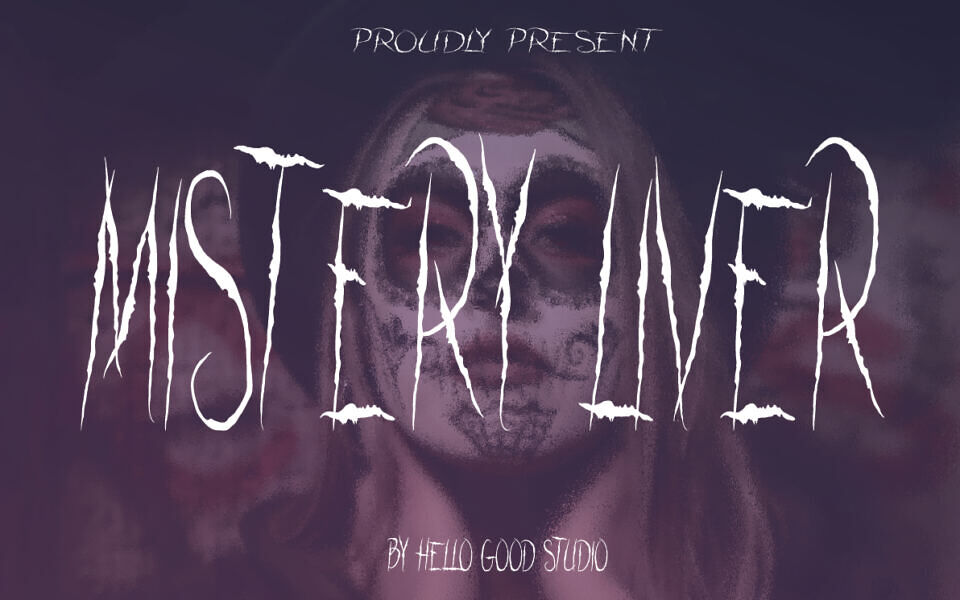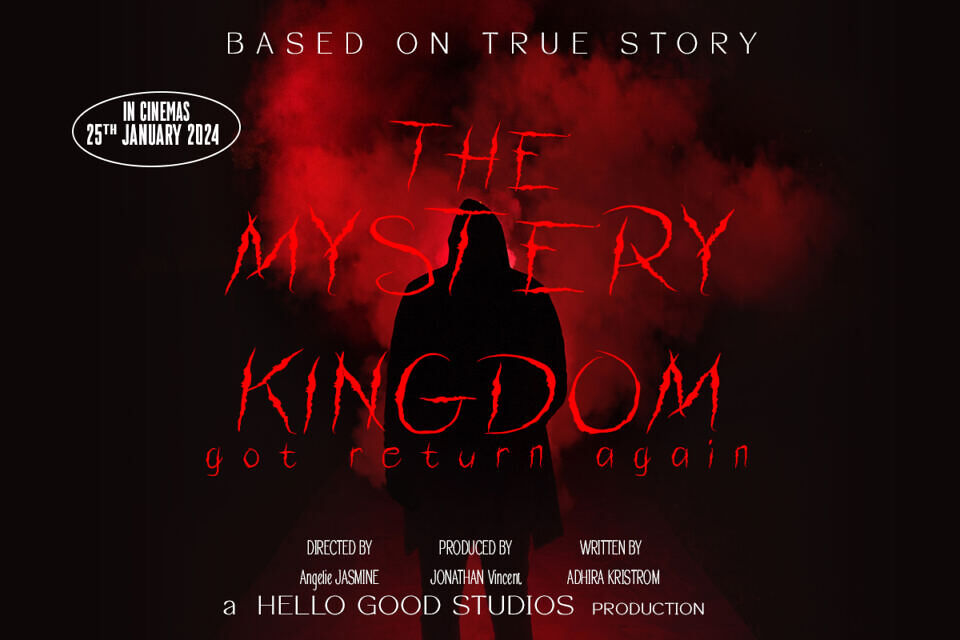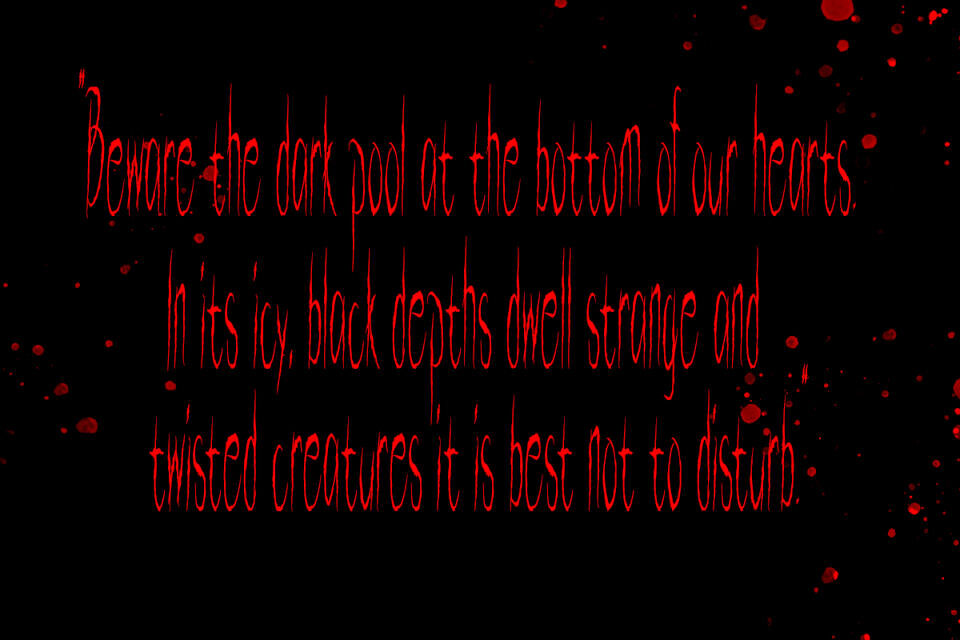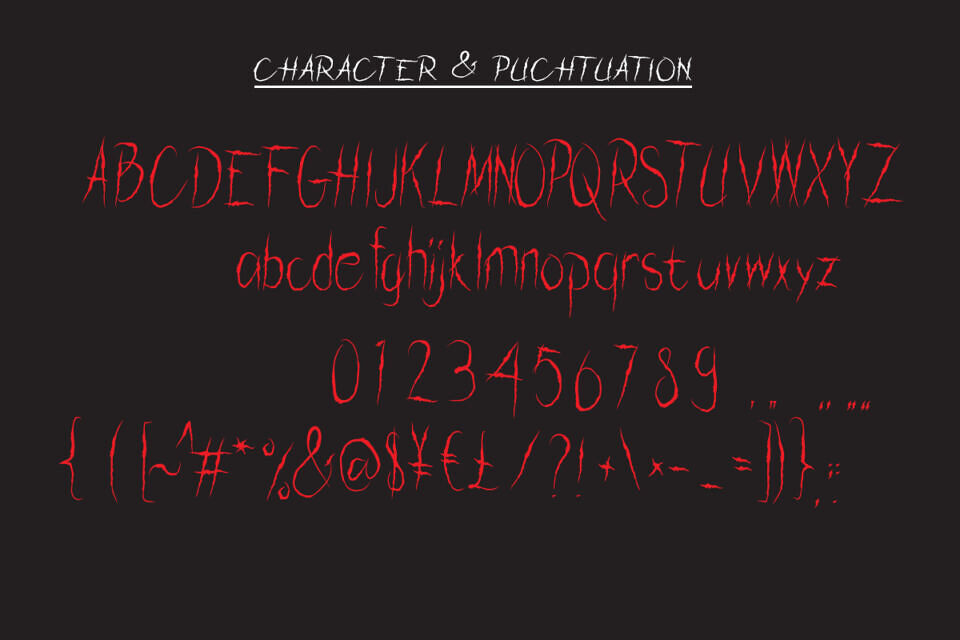
The MYSTERY LIVER font embodies an enigmatic and chilling aura, perfectly tailored for the realms of music metal and horror movies. Its sharp, jagged edges and twisted, intricate curves evoke a sense of dark intrigue and unearthly mystery. Each letter is crafted with an ominous elegance, reminiscent of ancient runes etched in forbidden tomes.
The font’s bold and imposing strokes lend themselves to commanding attention, drawing the eye with an unsettling intensity. Its serpentine embellishments and cryptic symbols add an otherworldly depth, creating an atmosphere of eerie foreboding.